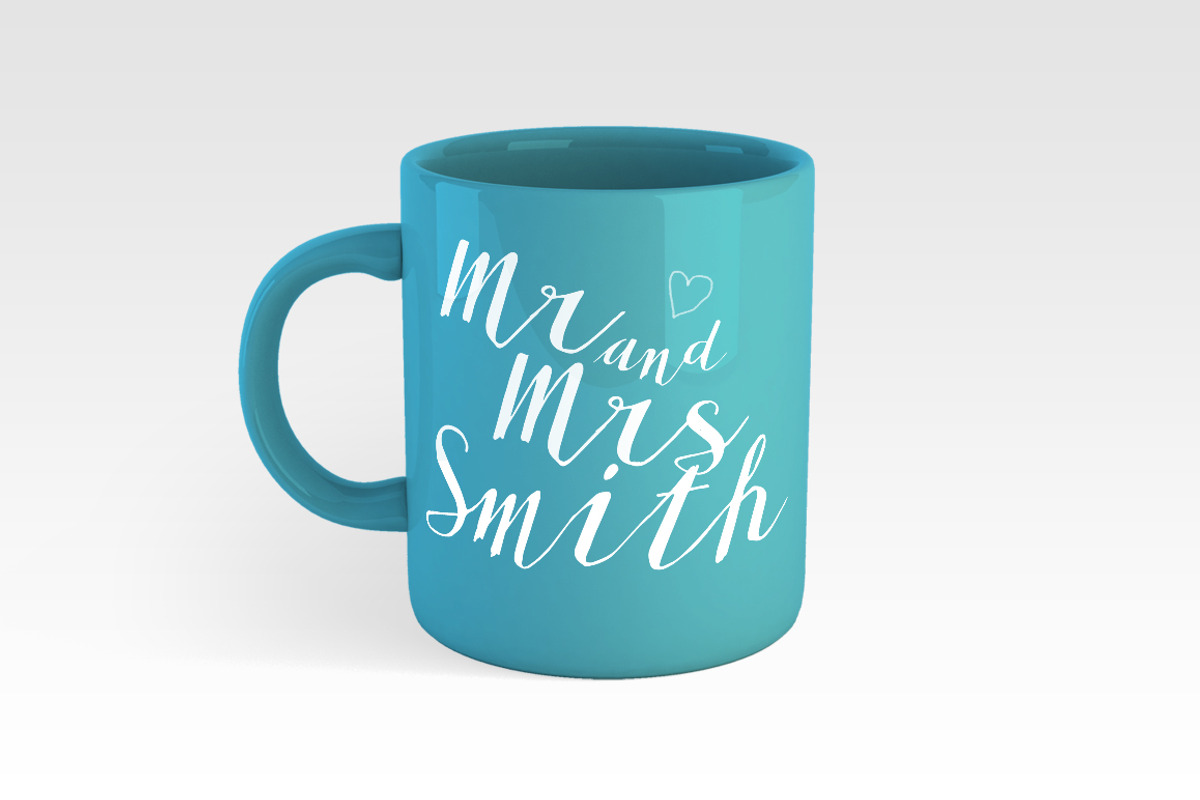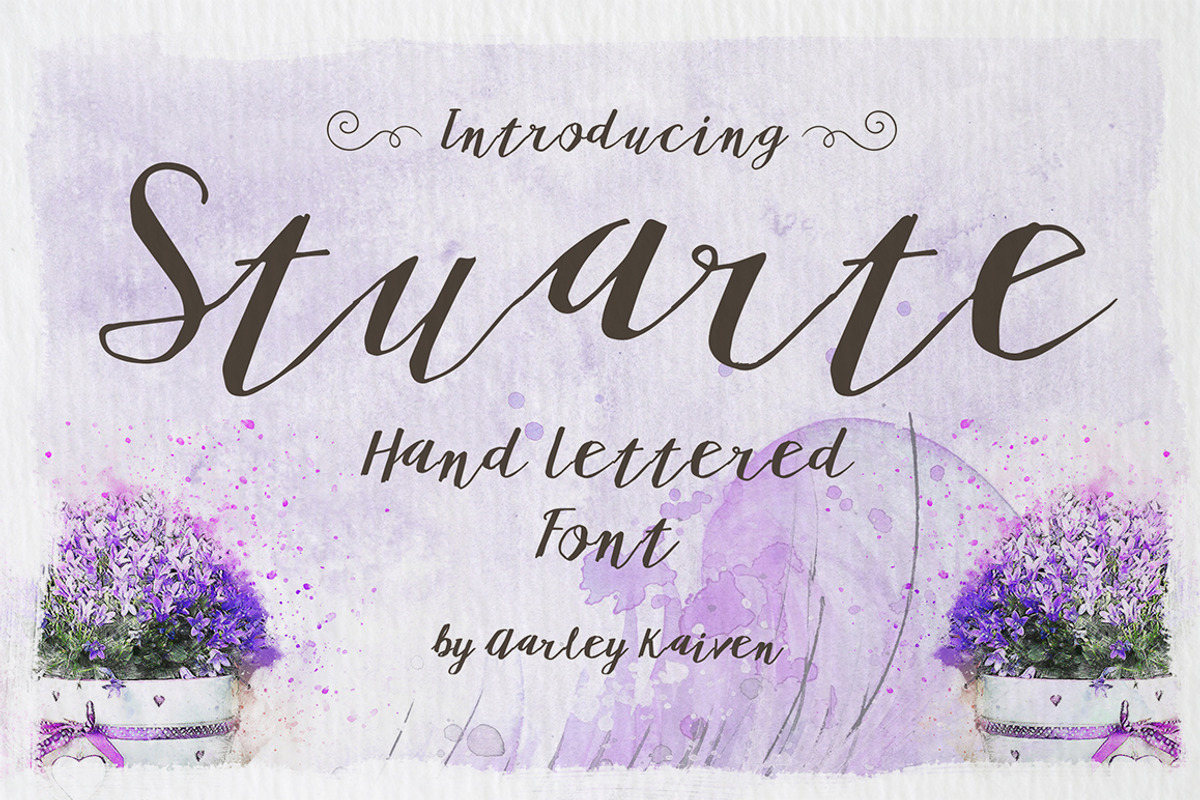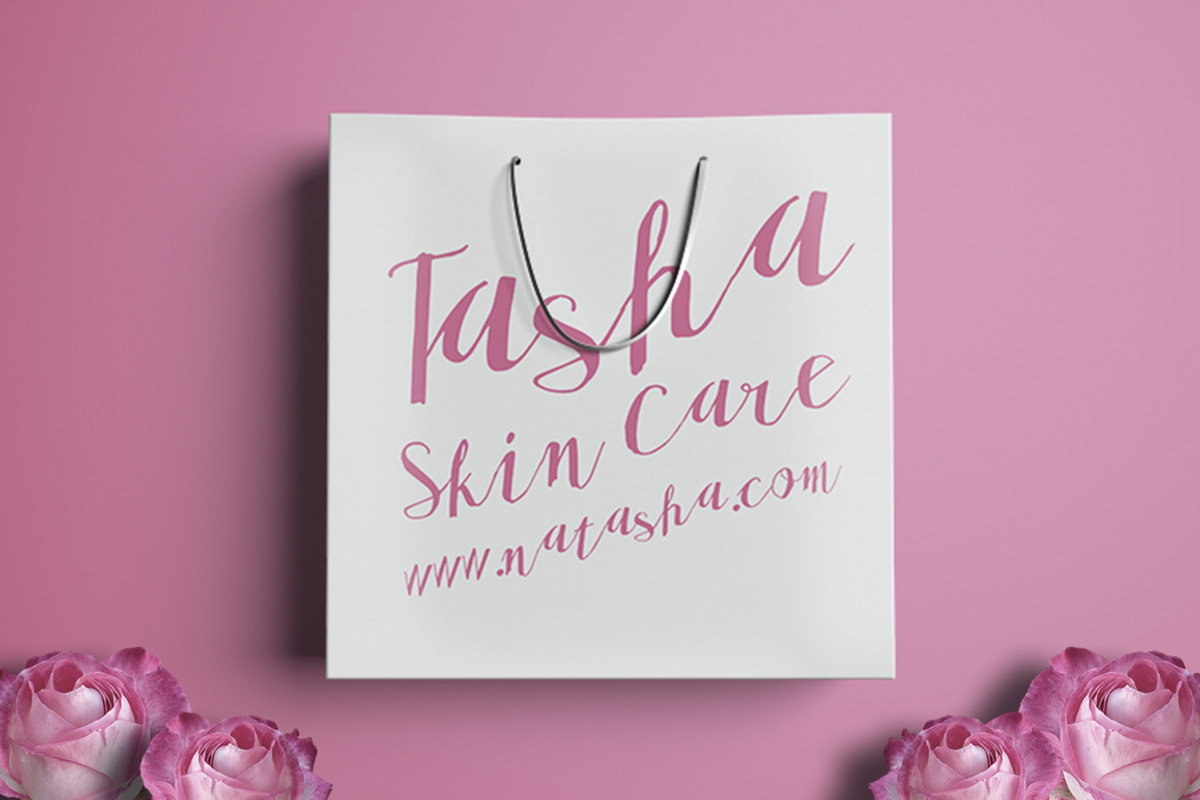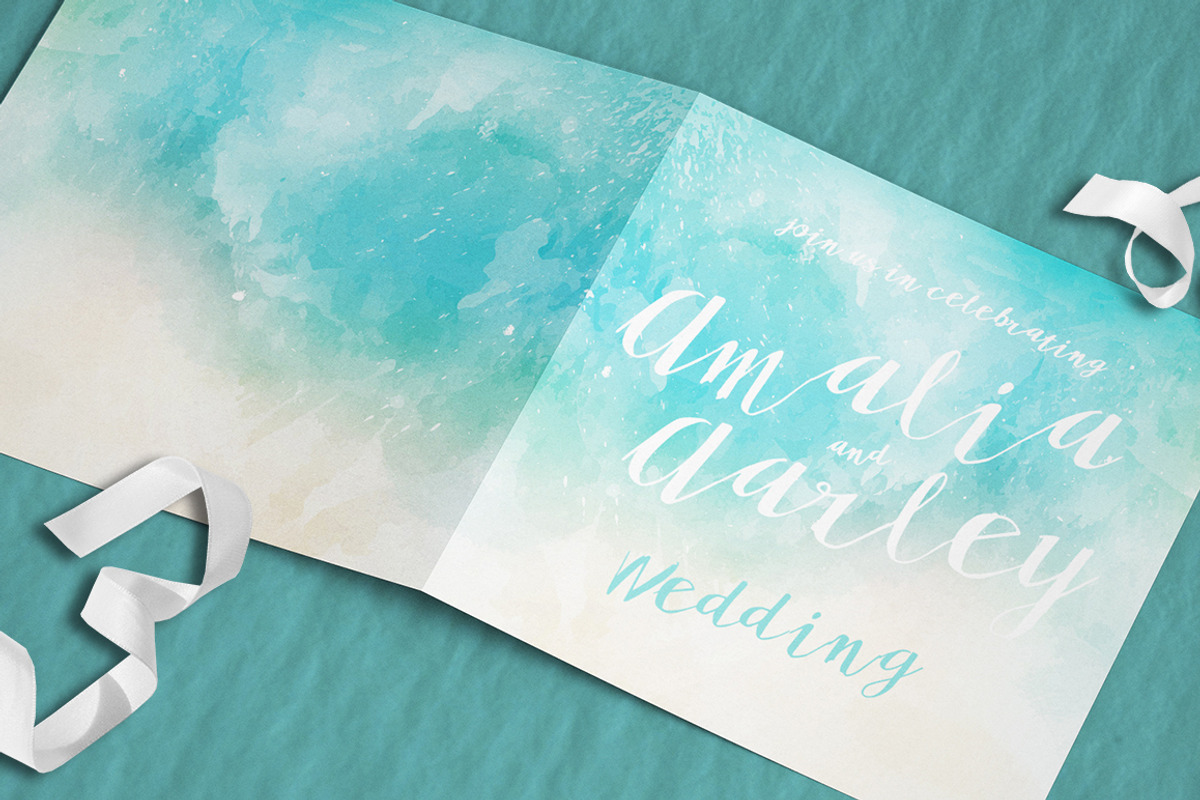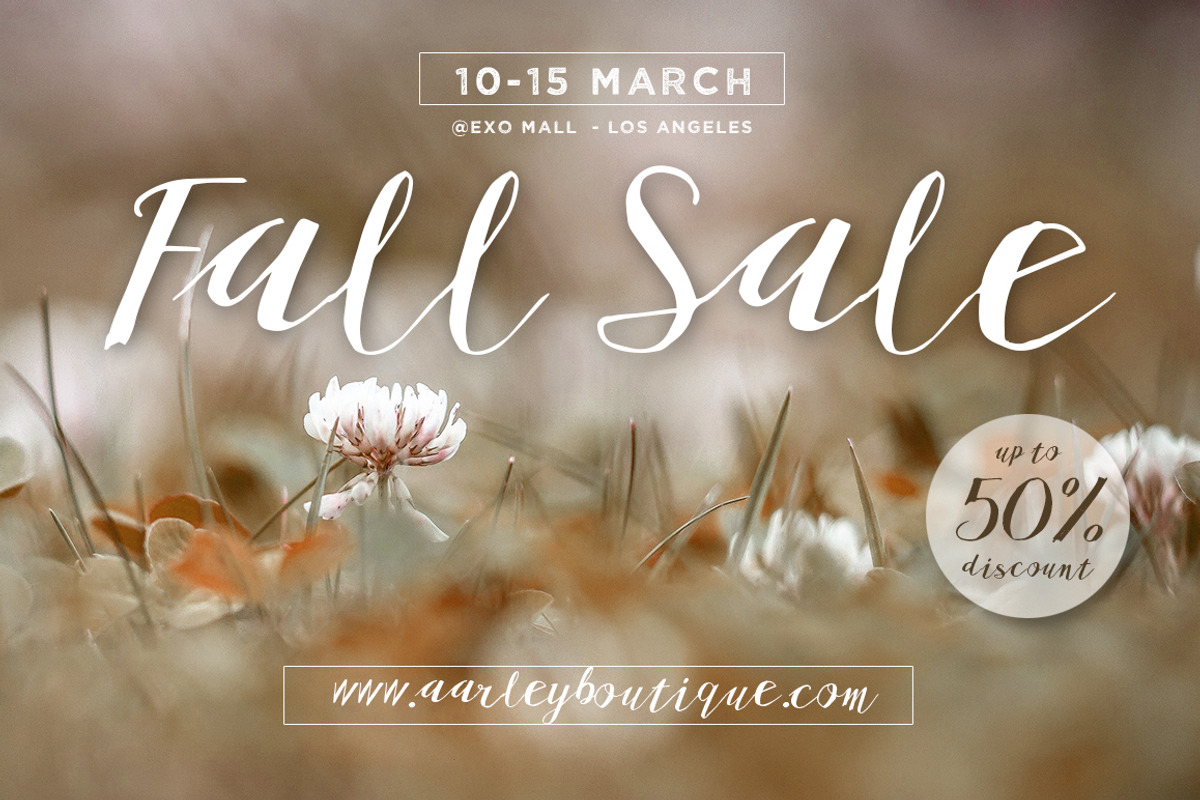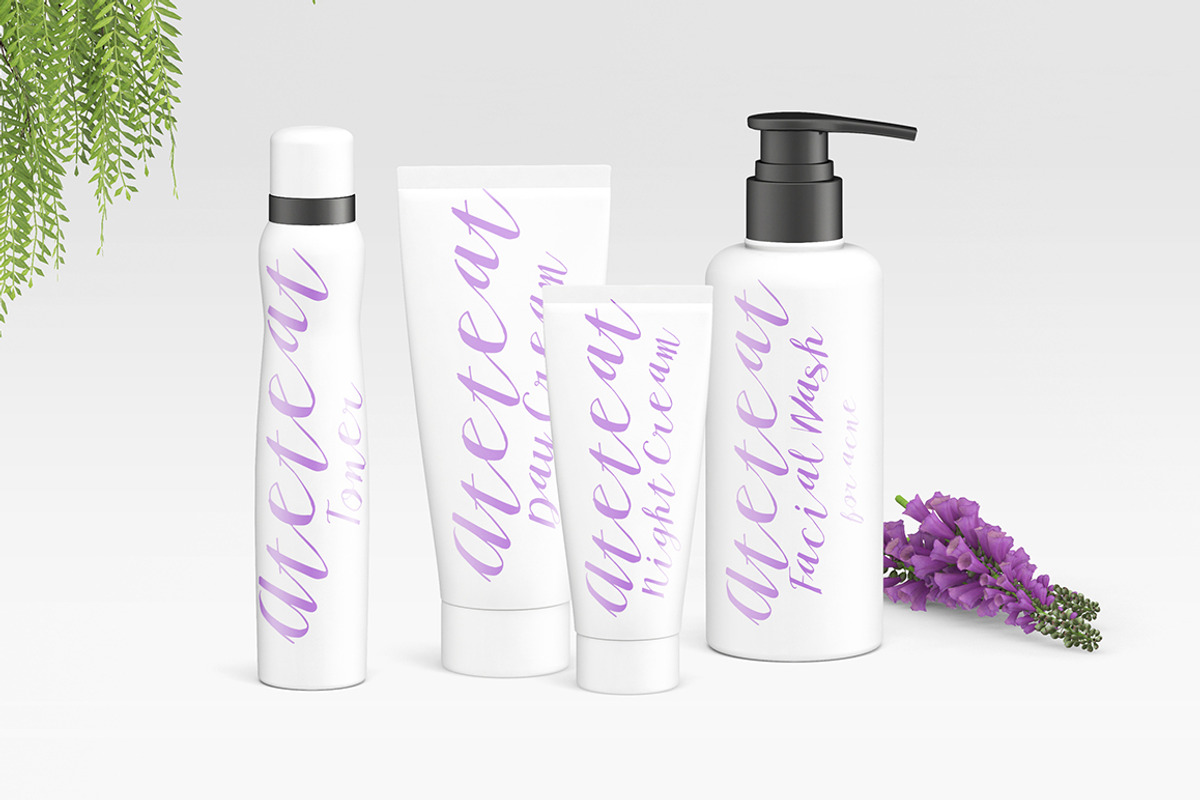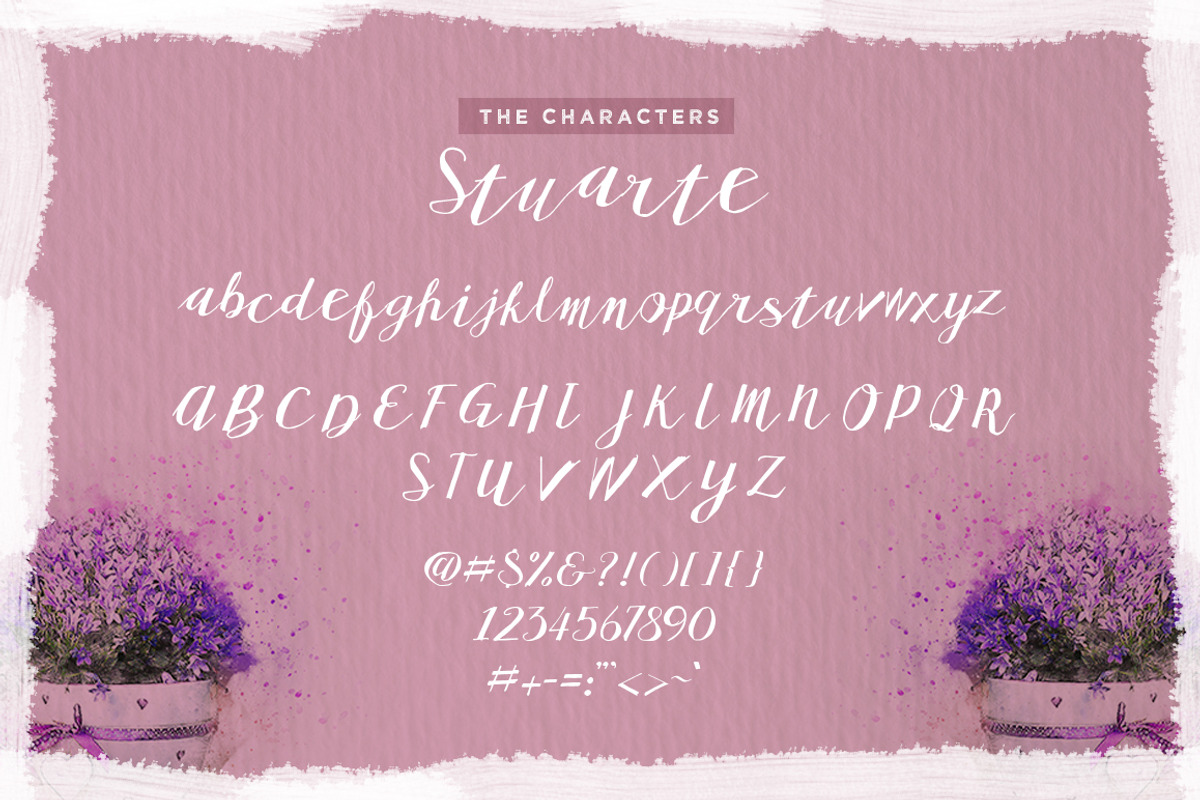
Stuarte Font
A hand painted typeface, perfect for using in ink or watercolour based designs or on its own as bold hand-brushed lettering. Suitable for invitation card design, headline, poster and many more.
Stuarte Font by Aarley Kaiven fits naturally into Branding, posters, packaging, typography.